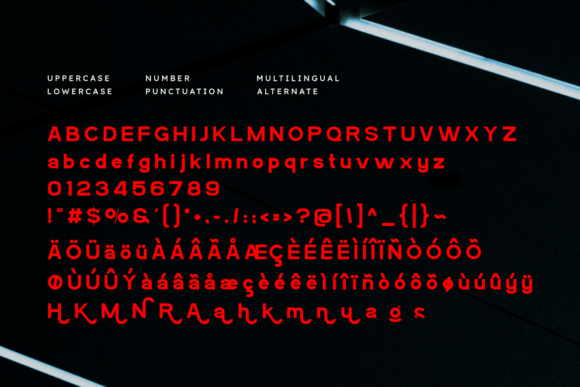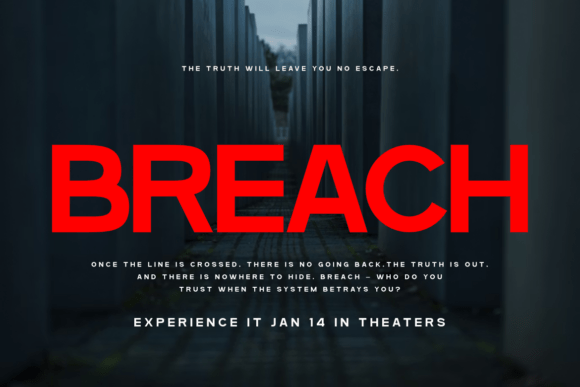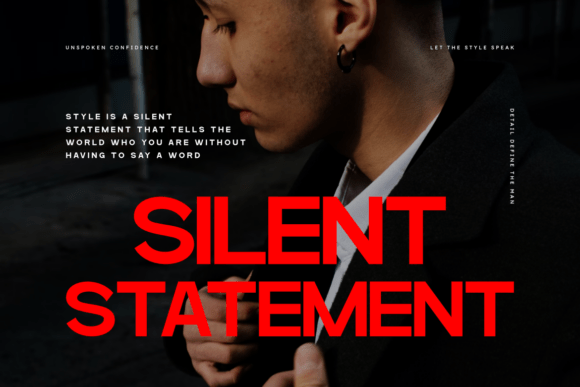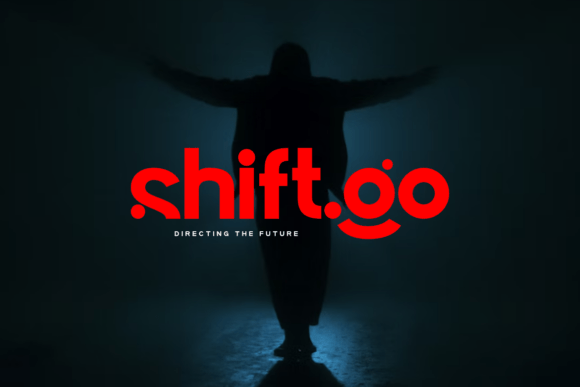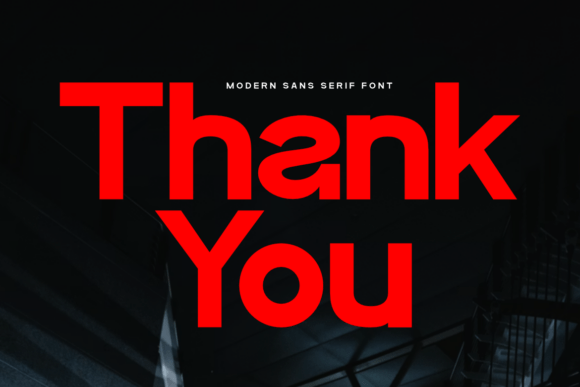
Introduction to Modeone Font
As a designer, you’ve probably had that moment when the perfect font makes all the difference in your creative project. It’s that ‘aha’ moment when everything comes together, and your design goes from good to great. For many of us, that moment is elusive, but with the right tools, it’s within reach. In this article, we’ll explore one such game-changing font: the Modeone Font.
With its clean, modern aesthetic and bold geometric structure, the Modeone Font is an outstanding choice for designers looking to make a statement. Its versatility makes it perfect for high-impact visual communication, from editorial design to modern branding, and even sophisticated logo projects. Whether you’re working on a digital or print project, the Modeone Font offers a perfect blend of minimalist style and powerful presence, ensuring your design remains clear, contemporary, and unforgettable.
Key Features of Modeone Font
Honest Review: Modeone Font
As a designer, I’m always on the lookout for high-quality design resources that can elevate my creative projects. Recently, I stumbled upon the Modeone Font, and I’m excited to share my honest review with you.
What works well about the Modeone Font is its versatility. With a range of styles and weights to choose from, it’s perfect for a variety of design projects, from logos to brochures. The font is also free to download, which is a major plus for designers on a budget.
Here are some of the features that I love about the Modeone Font:
- ✨ High-quality design with a transparent background, making it easy to use in a variety of design applications.
- ✨ Versatile and adaptable, with a range of styles and weights to suit different design needs.
- ⚠️ Limited customization options, which may not be ideal for designers who want more control over their font.
Overall, the Modeone Font is a great design resource for designers who need a high-quality, versatile font for their creative projects. While it has some limitations, I would highly recommend it for personal projects or non-commercial use.
Common Use Cases for Modeone Font
The Modeone Font is perfect for a variety of creative projects, including logos, business cards, and marketing materials. Its high-quality design and transparent background make it easy to use in any format, from digital to print.